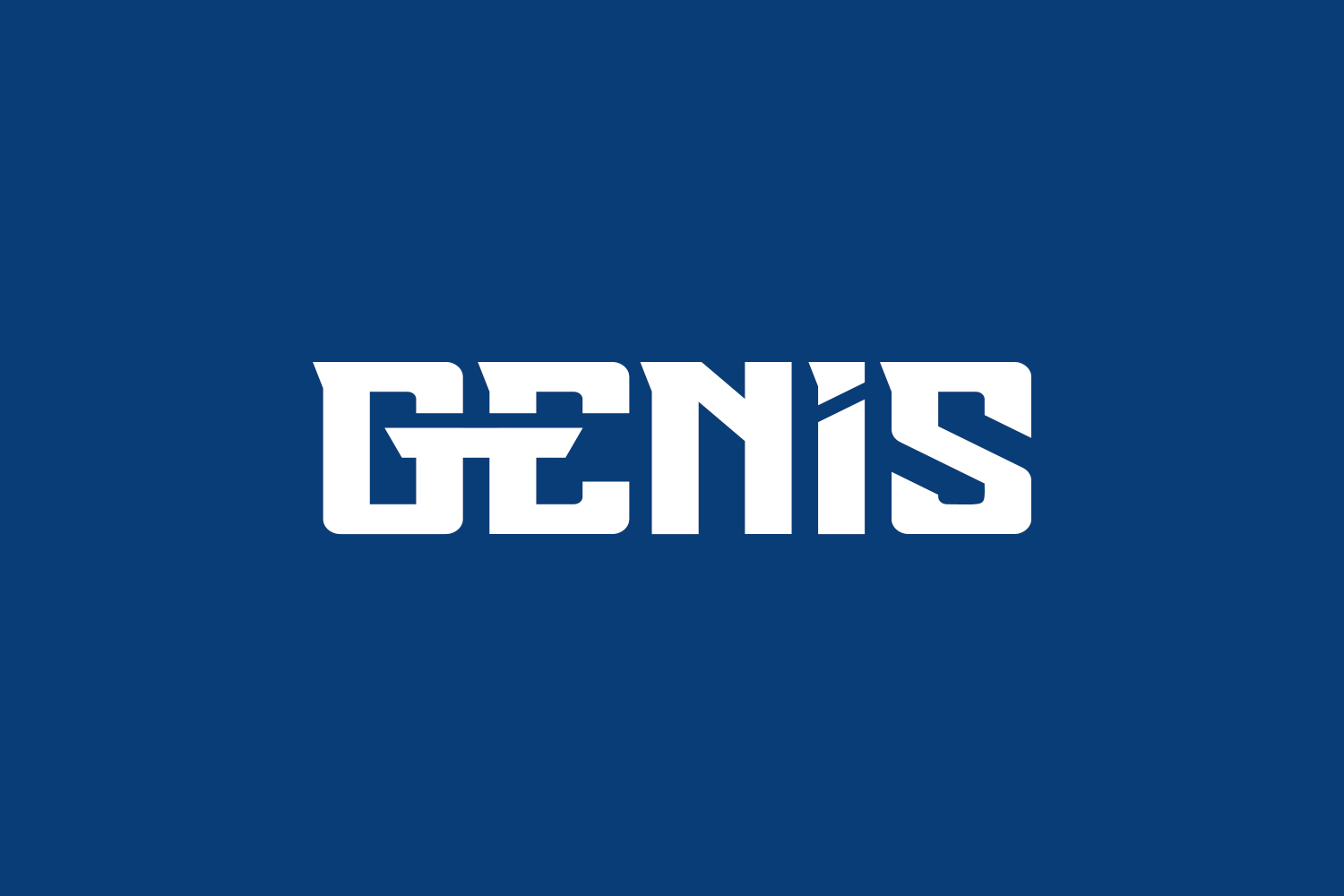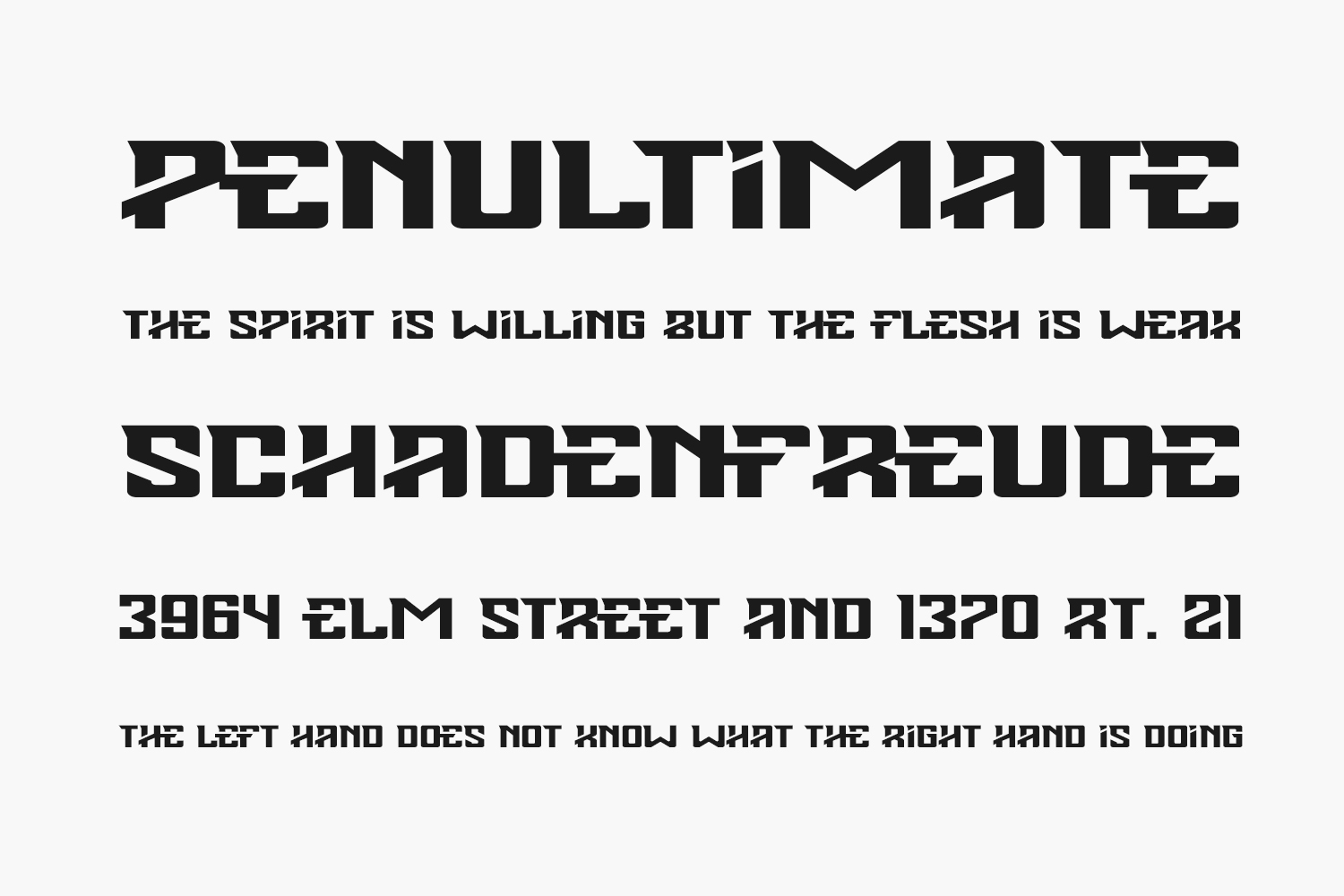
Introducing Genis Free Font, an impactful and genuine display font designed to elevate your branding projects. With its bold and distinctive style, this versatile font is perfect for logos, t-shirt printing, esports, and more. Whether you’re creating a professional brand identity or seeking to make a bold statement, Genis delivers exceptional visual appeal across various applications. Stand out from the crowd and make a lasting impression with the striking Genis display font. Genis Free Font is free for personal use only. Please purchase the full version for commercial use.
Designed by Albert Kalingga